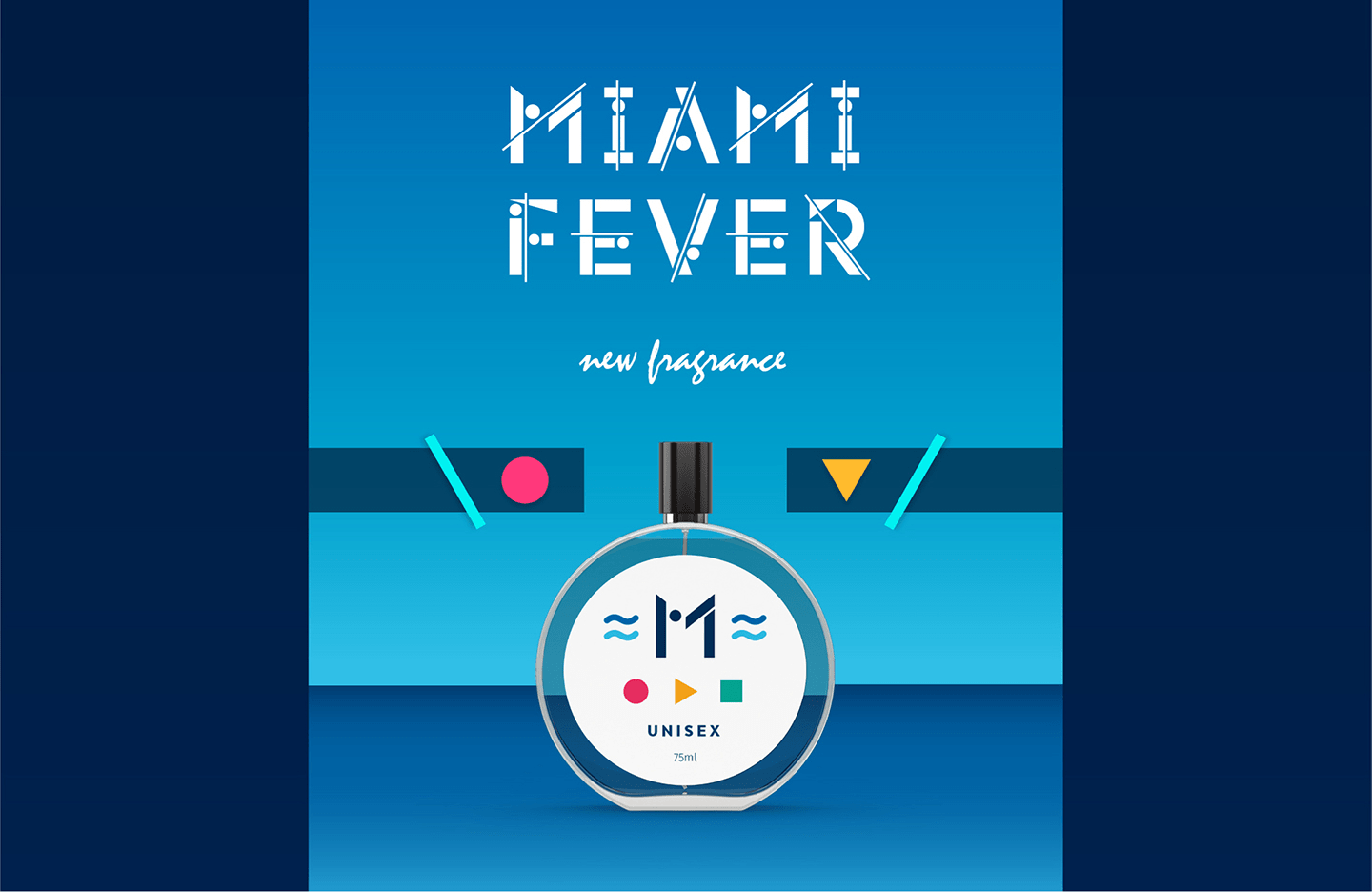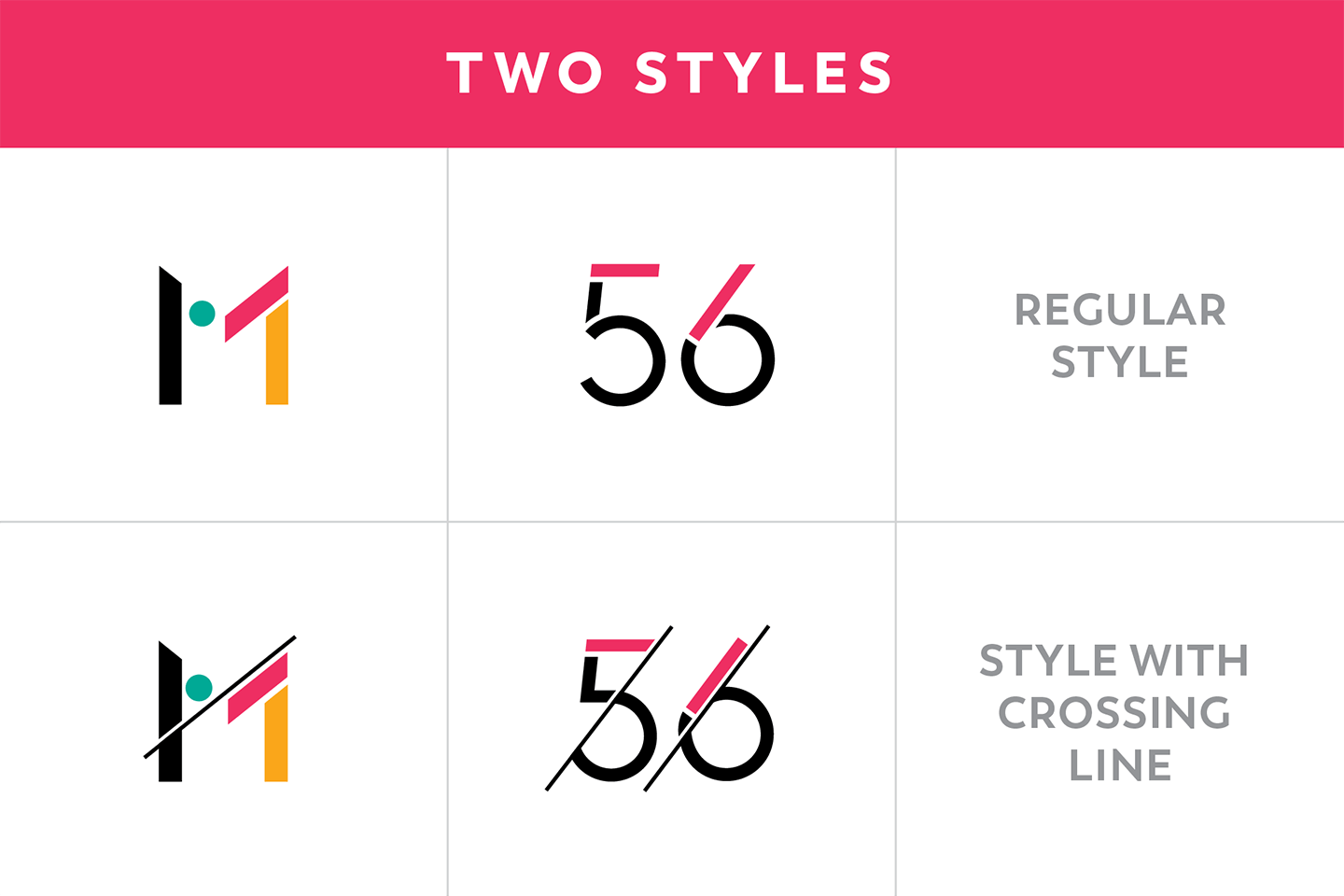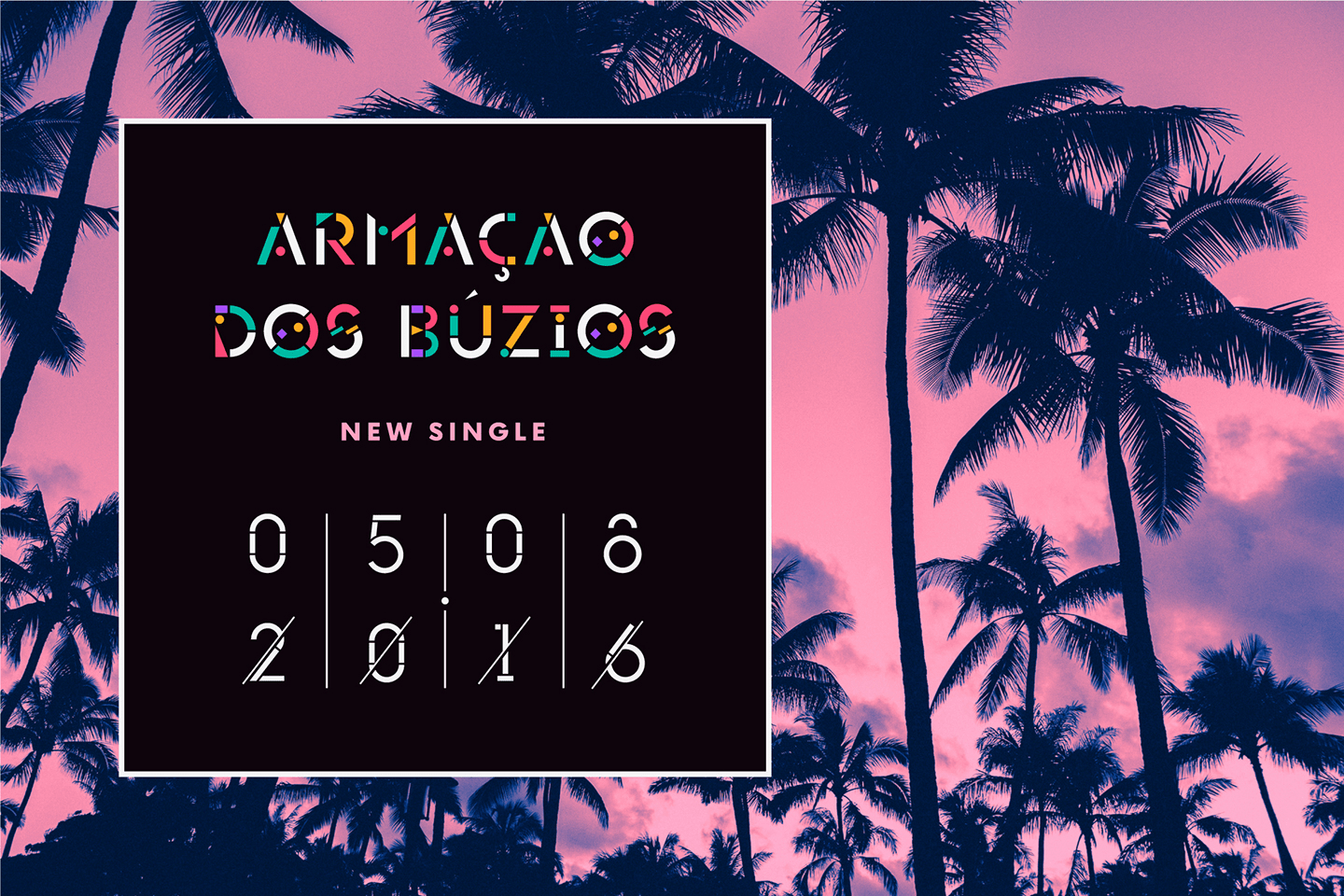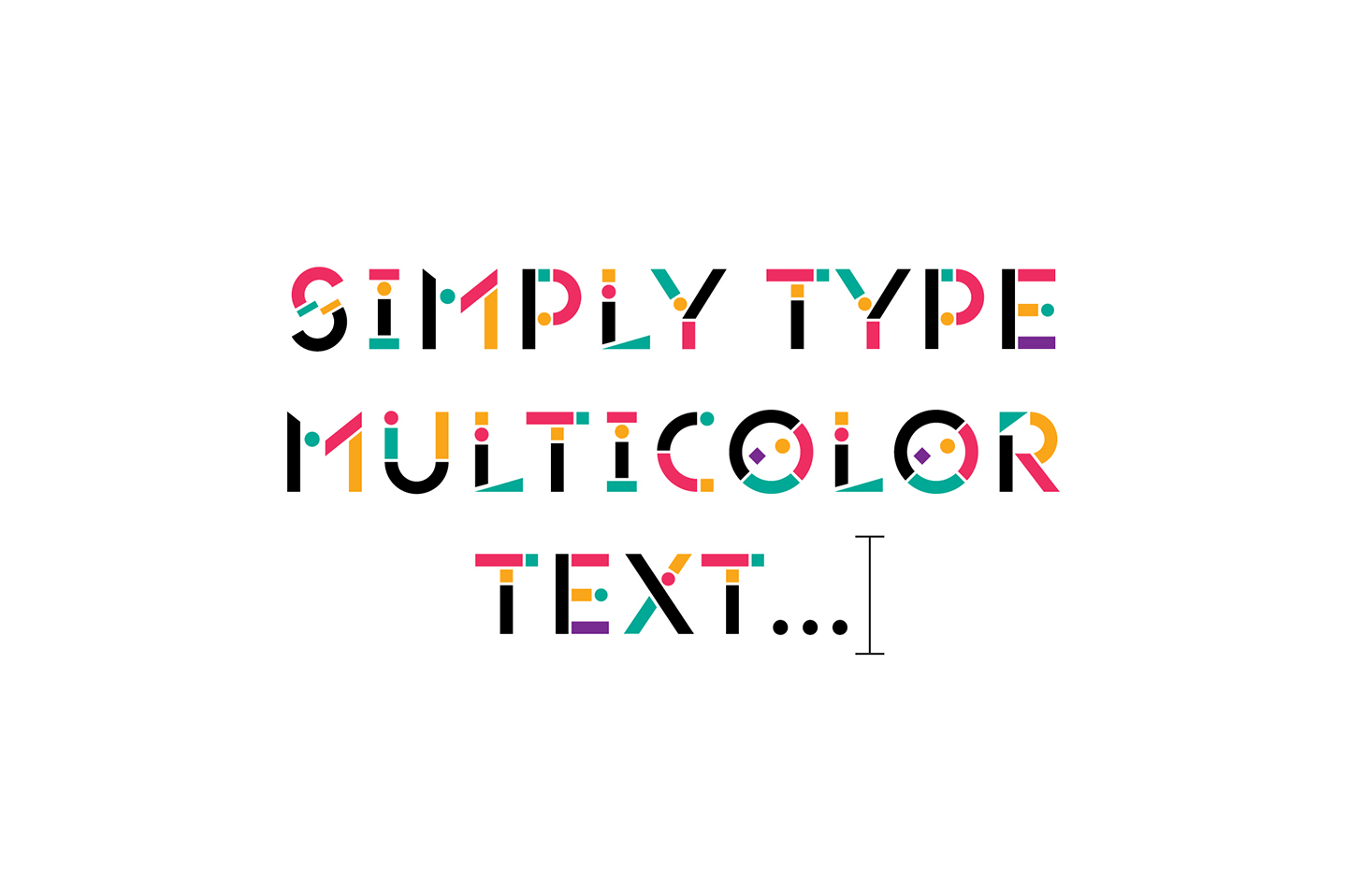
POPSKY is an avant-garde multi-color font. Its design incorporates optimism and motivation that will instantly bring the attention of your clients and followers. Made solely out of basic geometry shapes, and using a pop-art color scheme it is "CONSTRUCTIVISM…